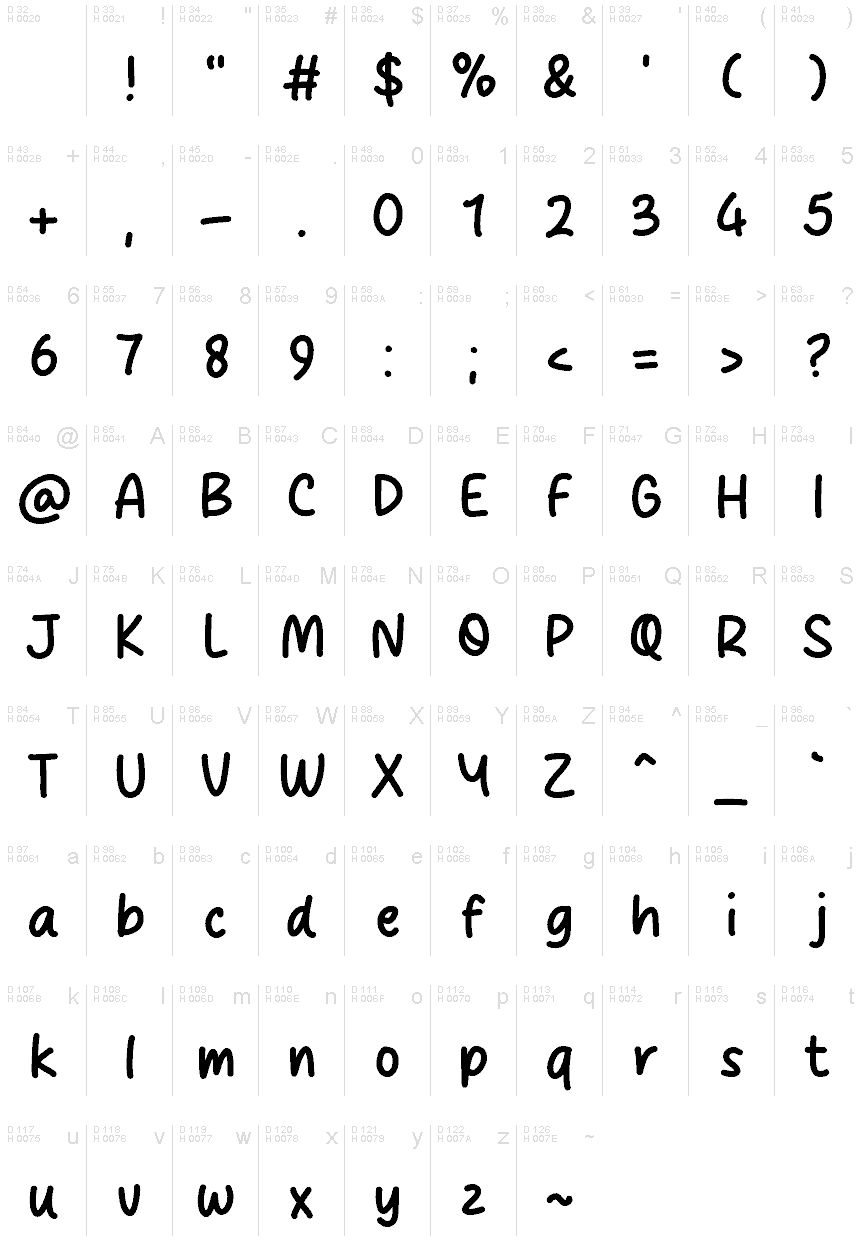
Sleepy Moody
Sleepy Moody font is a handwritten font designed by MJType. The casual feel with which it expresses itself presents its character in a smooth and fluid flow. Unlike the majority of its siblings, this font displays more modernism than authenticity allowing for the best of both worlds.